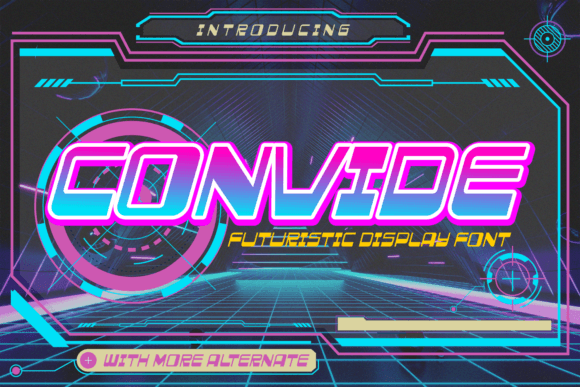
**Convide Font: The Gateway to Futuristic Designs**
In a world craving innovation and uniqueness, Convide Font stands tall as the ultimate display typeface, ready to catapult your designs into the digital stratosphere. This avant-garde creation by Situjuh is not just a font; it's a portal to a world of endless creative possibilities.
**A Journey Through the Digital Landscape**
With its sleek and polished appearance, Convide Font is the perfect companion for those who dare to embrace the digital age. Its sharp edges and dynamic curves embody the essence of modernity, creating a visual spectacle that captivates and engages. From branding projects that demand a cutting-edge identity to posters yearning for a futuristic touch, Convide Font is the key to unlocking your creative potential.
**Beyond Boundaries: A Font for All Seasons**
Convide Font transcends the boundaries of genre, seamlessly adapting to a myriad of design endeavors. Whether you're crafting logos that demand attention, websites that exude sophistication, or social media posts that spark conversations, this font will effortlessly elevate your creations. Its versatility knows no bounds, making it the ultimate choice for designers seeking a font that can effortlessly adapt to their ever-changing visions.
**A Universe of Glyphs and Swashes Awaits**
Convide Font comes fully equipped with a treasure trove of glyphs and swashes, accessible with ease thanks to its PUA encoding. Unleash your creativity and explore a world of intricate details, delicate flourishes, and captivating alternates. Each element is meticulously crafted to enhance your designs, adding layers of depth and personality that leave a lasting impression.
**Convide Font: The Catalyst for Design Evolution**
In a world where creativity reigns supreme, Convide Font emerges as the ultimate catalyst for design evolution. Its futuristic charm and boundless versatility will transform your projects into masterpieces that resonate with the modern audience. Embrace the digital revolution and embark on a journey of innovation with Convide Font as your steadfast companion.